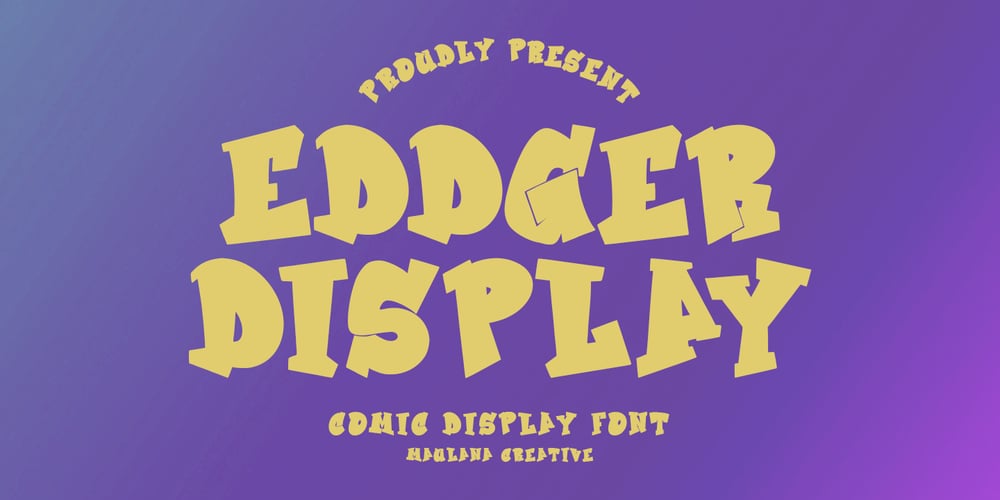
MC Eddger
MC Eddger font
MC Eddger Font Family was designed by Gilang Maulana and published by Maulana Creative. MC Eddger contains 1 styles and family package options. Eddger comic display font. Heavy stroke, fun character with a bit of ligatures. To give you an extra creative work. Eddger comic display font support multilingual more than 100+ language. This font is good for logo design, Social media, Movie Titles, Books Titles, a short text even a long text letter and good for your secondary text font with script or serif. Make a stunning work with Eddger comic display font. Cheers, Maulana Creative